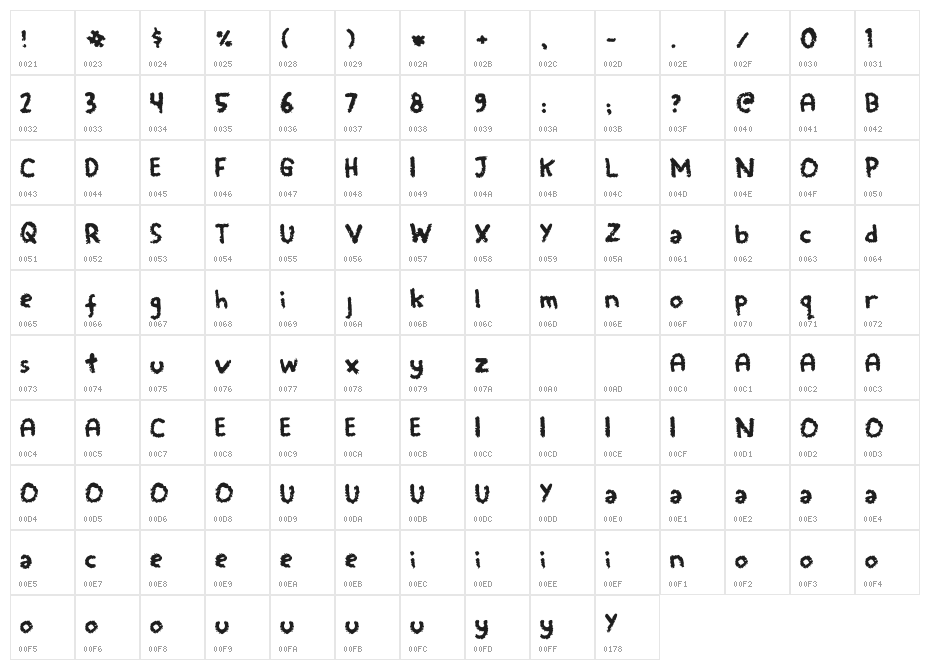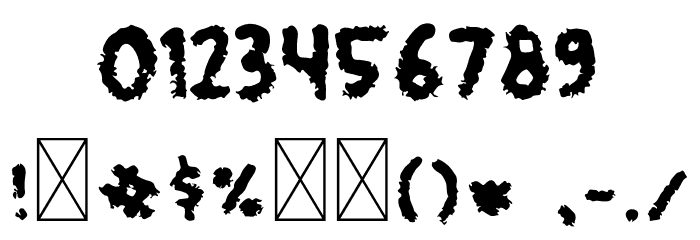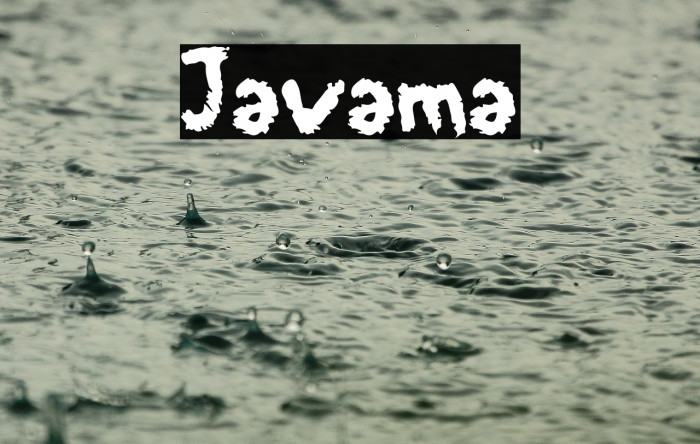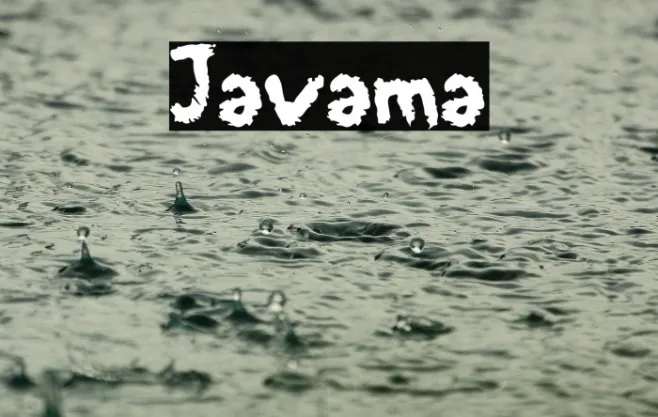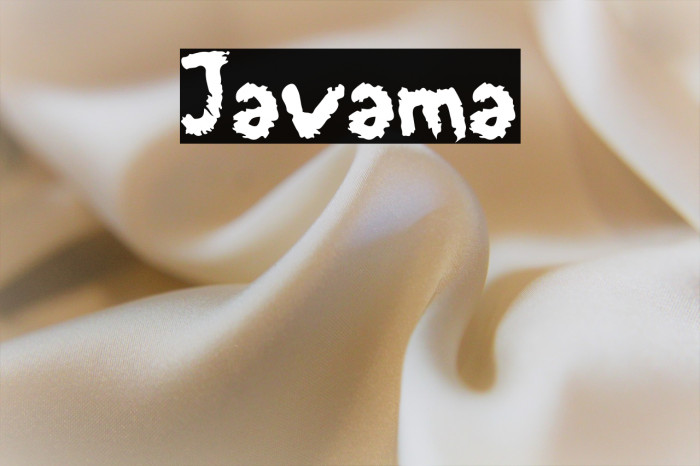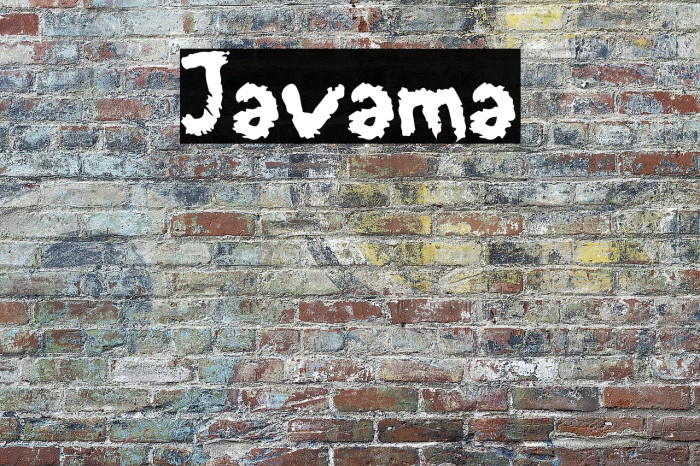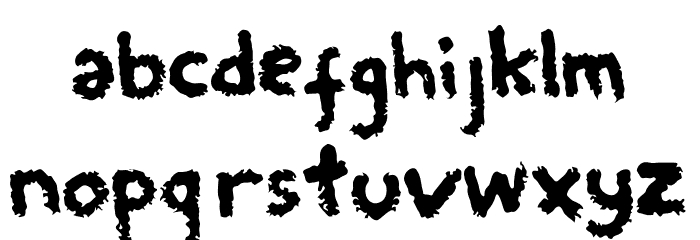
Javama Font
Javama Description
This font features a bold, jagged style that resembles torn paper or rough brush strokes. The characters are irregular and dynamic, giving a sense of movement and energy. The uppercase and lowercase letters maintain a consistent rough texture, while the numerals and special characters follow the same aesthetic, ensuring uniformity across all glyphs. The font's unique appearance makes it stand out, ideal for projects that require a dramatic and eye-catching typeface. Its rough edges and bold presence make it suitable for creative and unconventional designs.
| Proposed Projects | Ideal for horror-themed designs, edgy posters, album covers, and creative branding. |